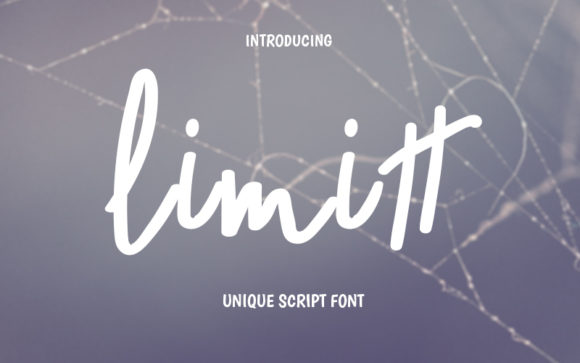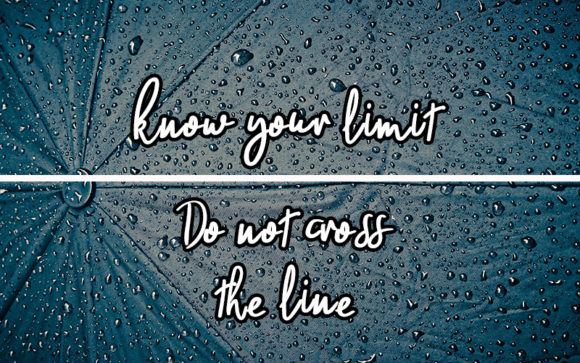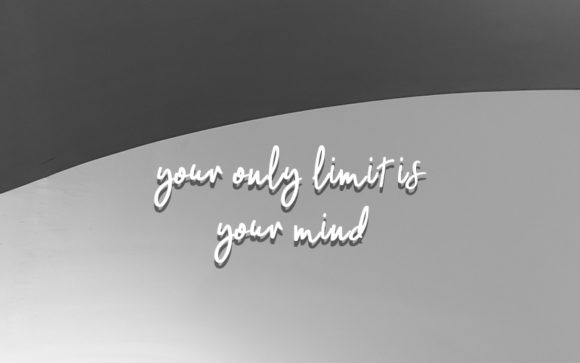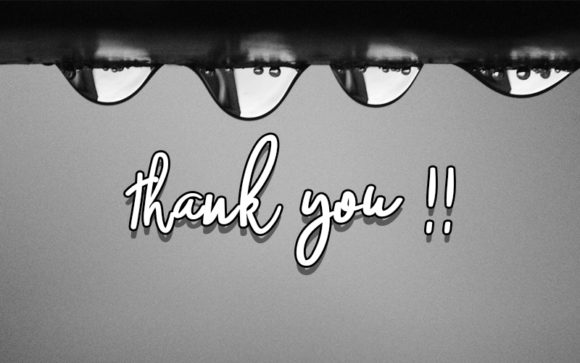
Limitt Font
Limitt is a sweet and friendly handwritten font. Its natural and unique style makes it incredibly fitting to a large pool of designs. The only limit is your imagination!